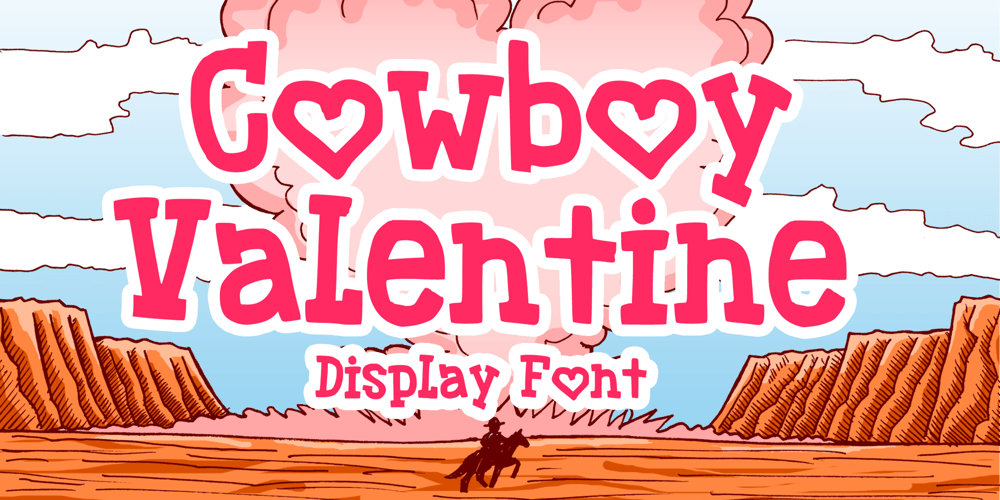
Cowboy Valentine Font Family was designed by Gabriel Valentinus and published by Mvmet. Cowboy Valentine contains 1 styles and family package options. Cowboy Valentine is a playful Valentine mixed with cowboy themed serif font that you can use it for anything ranging from t-shirts, book designs, packaging, and greeting cards to stickers and posters, or anything that needs a casual touch, it will be your perfect font to pick if you want to use it for Valentine. Fall in love with its incredibly versatile style, and use it to create lovely designs!